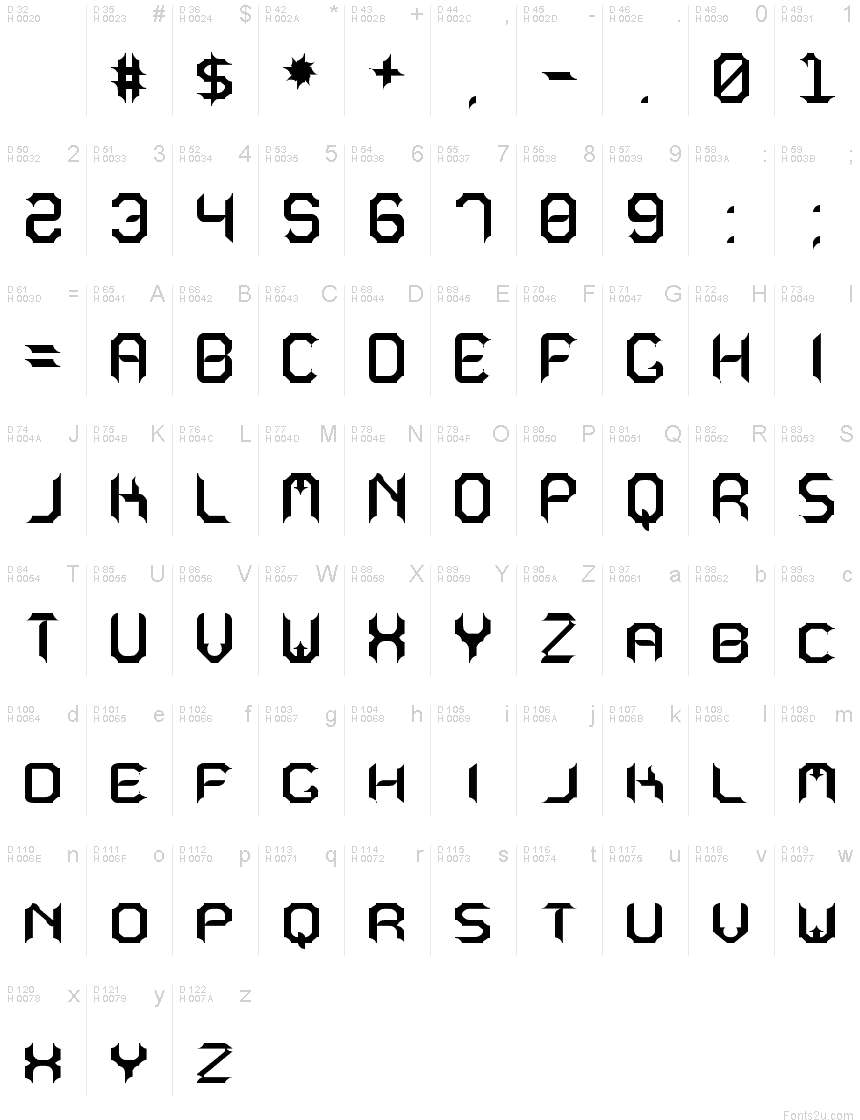
Mavole Sinpo TFB, created by Kaiserzharkhan in 2013, is a free modern Gothic display font with broad, severe letterforms. Sharp cut-ins, clipped corners, and curved interior bars give the letters a mechanical blackletter character, with several strokes broken into stencil-like sections.
Its blade-shaped details can echo heraldic emblems and fantasy illustration in game title screens and posters. The same mix of medieval structure and machine-cut geometry also suits metal album covers and apparel graphics rooted in industrial or dystopian themes.